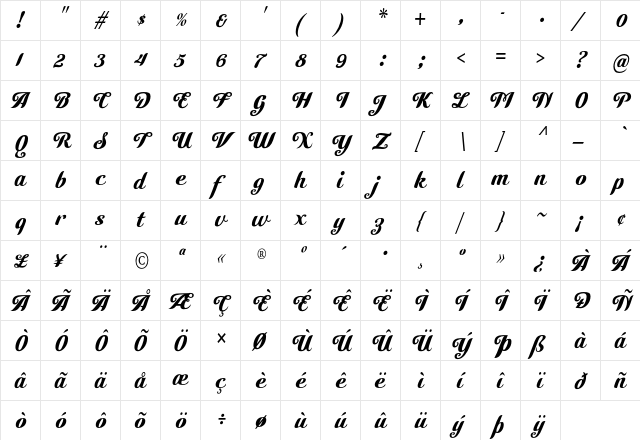
Cutiful Regular
Design Context for Cutiful Typeface
Cutiful is a composed and adaptable typeface that performs quietly and consistently across a wide range of design contexts.